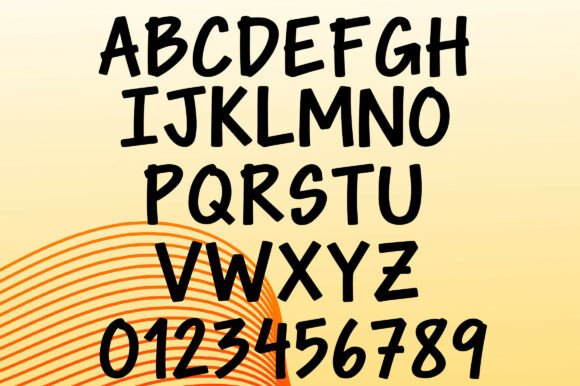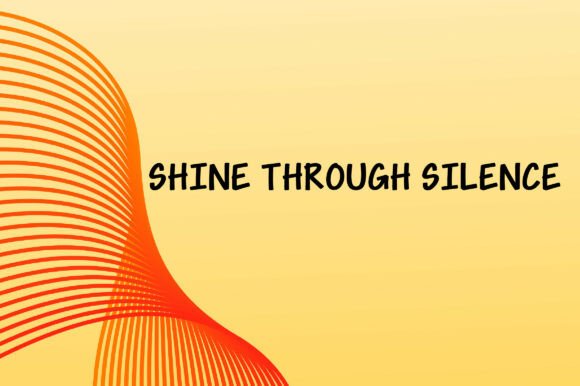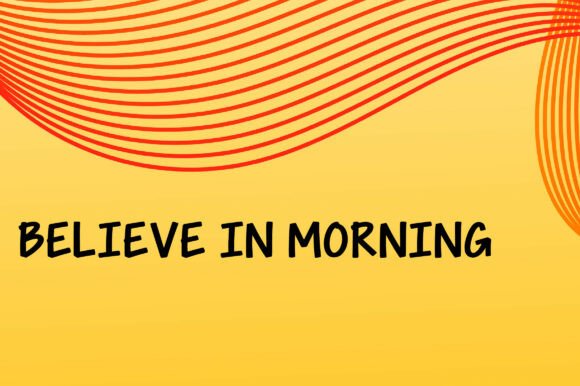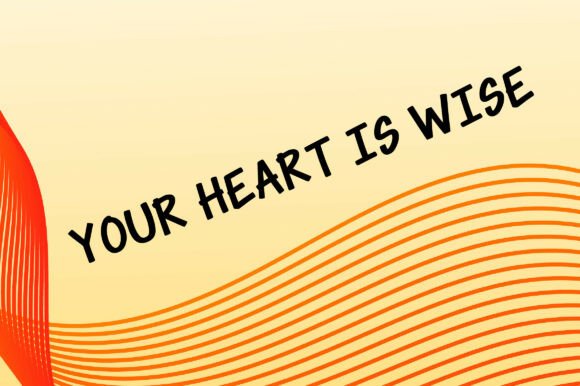
Introducing Cecelia Font: The Playful Display Font with a Modern Artistic Charm
Are you tired of using the same old fonts for your design projects? Look no further than Cecelia Font, a bold and playful display font that’s sure to add a touch of personality to your work. With its hand-drawn style and modern artistic charm, Cecelia Font is perfect for designers and crafters looking to add a unique and stylish touch to their projects.
The Characteristics of Cecelia Font
Cecelia Font is a uppercase display font that features rounded strokes, slightly uneven lines, and a casual handcrafted look. Its bold and playful style makes every word feel fun, warm, and full of personality. The font is designed with uppercase letters A-Z and numbers 0-9, making it perfect for a variety of design projects.
What Makes Cecelia Font Special?
So, what sets Cecelia Font apart from other fonts? Here are just a few things that make it special:
- Hand-drawn style: Cecelia Font has a unique, hand-drawn style that gives it a personal and artistic touch.
- Rounded strokes: The font features rounded strokes that add a touch of warmth and friendliness to your designs.
- Slightly uneven lines: The slightly uneven lines in Cecelia Font give it a casual, handcrafted look that’s perfect for designs that need a personal touch.
- Uppercase letters and numbers: Cecelia Font includes uppercase letters A-Z and numbers 0-9, making it perfect for a variety of design projects.
Uses for Cecelia Font
Cecelia Font is a versatile font that can be used for a variety of design projects, including:
- Branding: Use Cecelia Font to add a playful and stylish touch to your brand’s logo or marketing materials.
- Posters: Cecelia Font is perfect for creating eye-catching posters that need a bold and playful font.
- Packaging: Add a touch of personality to your product packaging with Cecelia Font.
- Invitations: Use Cecelia Font to create fun and stylish invitations for parties, events, and more.
- Quotes: Cecelia Font is perfect for creating inspirational quotes and social media graphics.
- Social media graphics: Use Cecelia Font to add a playful and stylish touch to your social media graphics.
- Creative projects: Cecelia Font is perfect for any creative project that needs a bold and playful font.
Why Designers and Crafters Love Cecelia Font
Designers and crafters love Cecelia Font for its unique and stylish design. Here are just a few reasons why:
- Easy to read: Despite its playful style, Cecelia Font is easy to read and understand.
- Versatile: Cecelia Font can be used for a variety of design projects, from branding to social media graphics.
- Unique: Cecelia Font has a unique and stylish design that sets it apart from other fonts.
- Fun: Cecelia Font is a fun and playful font that’s perfect for designs that need a personal touch.
If you’re looking for a font that adds a playful and stylish touch to your design projects, look no further than Cecelia Font. With its hand-drawn style, rounded strokes, and slightly uneven lines, Cecelia Font is perfect for designers and crafters who want to add a unique and artistic touch to their work. Try Cecelia Font today and see the difference it can make in your designs!